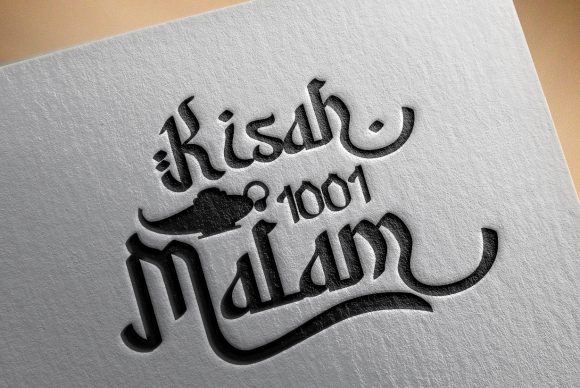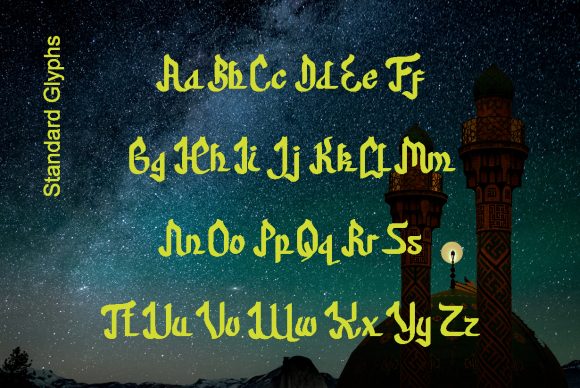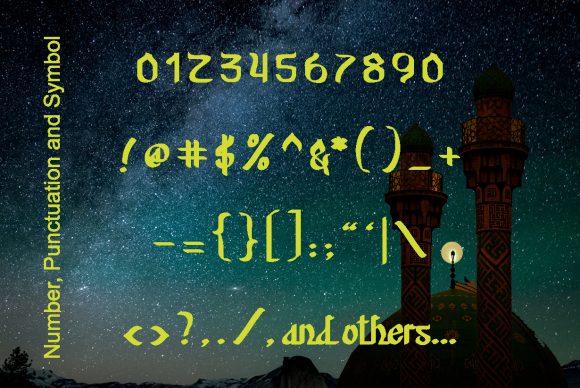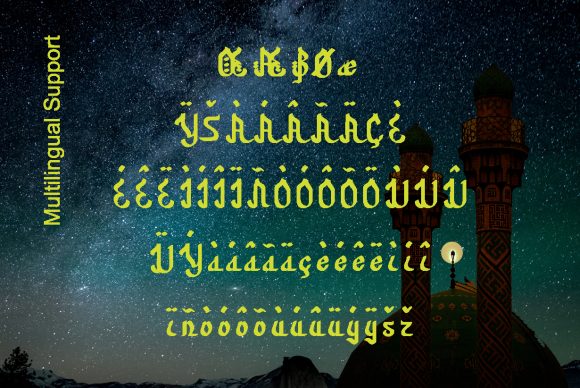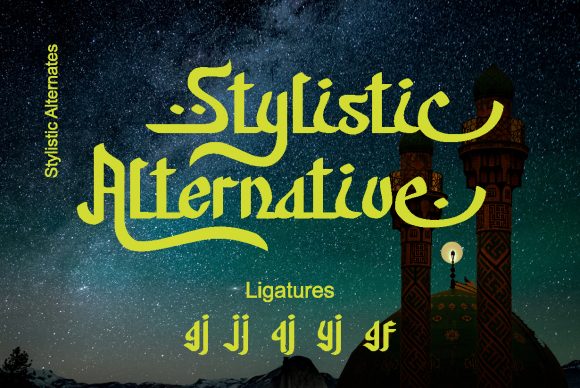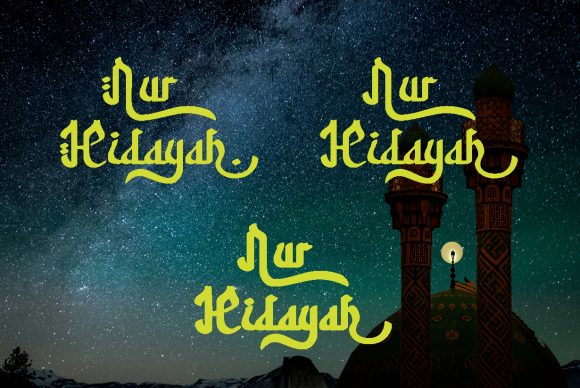
Introduction to Nur Hidayah Font
Nur Hidayah is an authentic and distinct display font.
It can be used for various purposes such as logos, wedding invitations, headings, t-shirts, letterhead, signage, labels, news, posters, badges and so much more .
Key Features of Nur Hidayah Font
Why Choose Nur Hidayah Font?
Nur Hidayah Font offers exceptional quality and versatility, making it a valuable addition to your design toolkit. Whether you’re creating for personal projects or commercial use, Nur Hidayah Font delivers professional results.